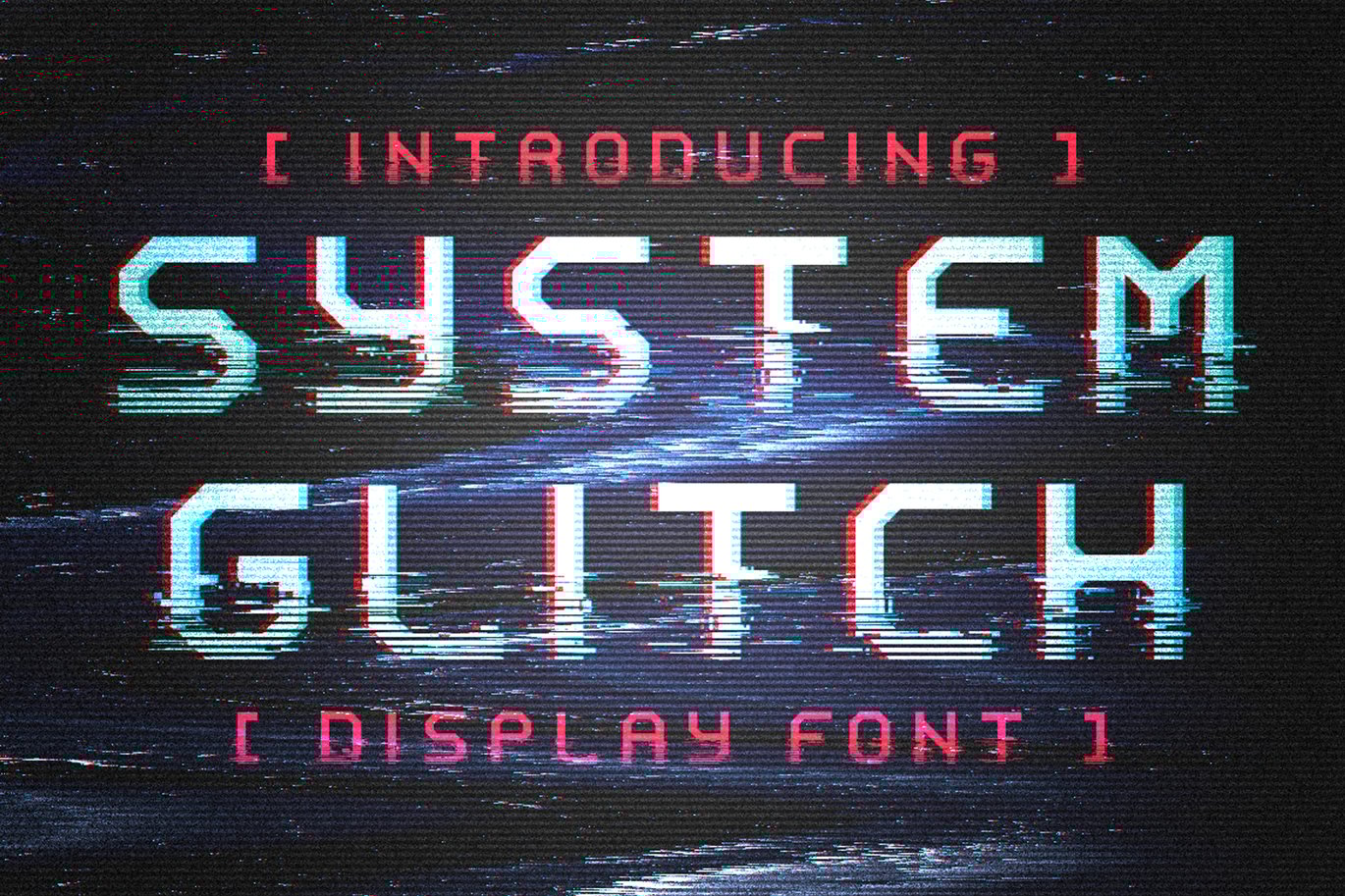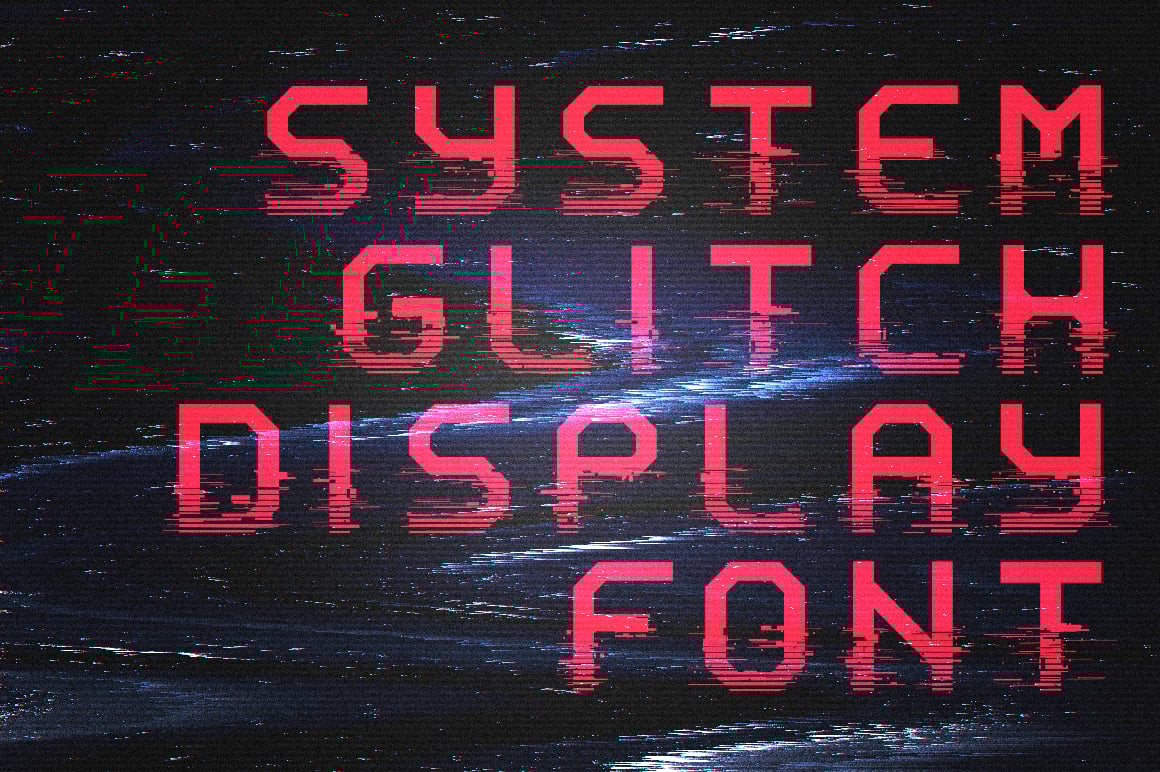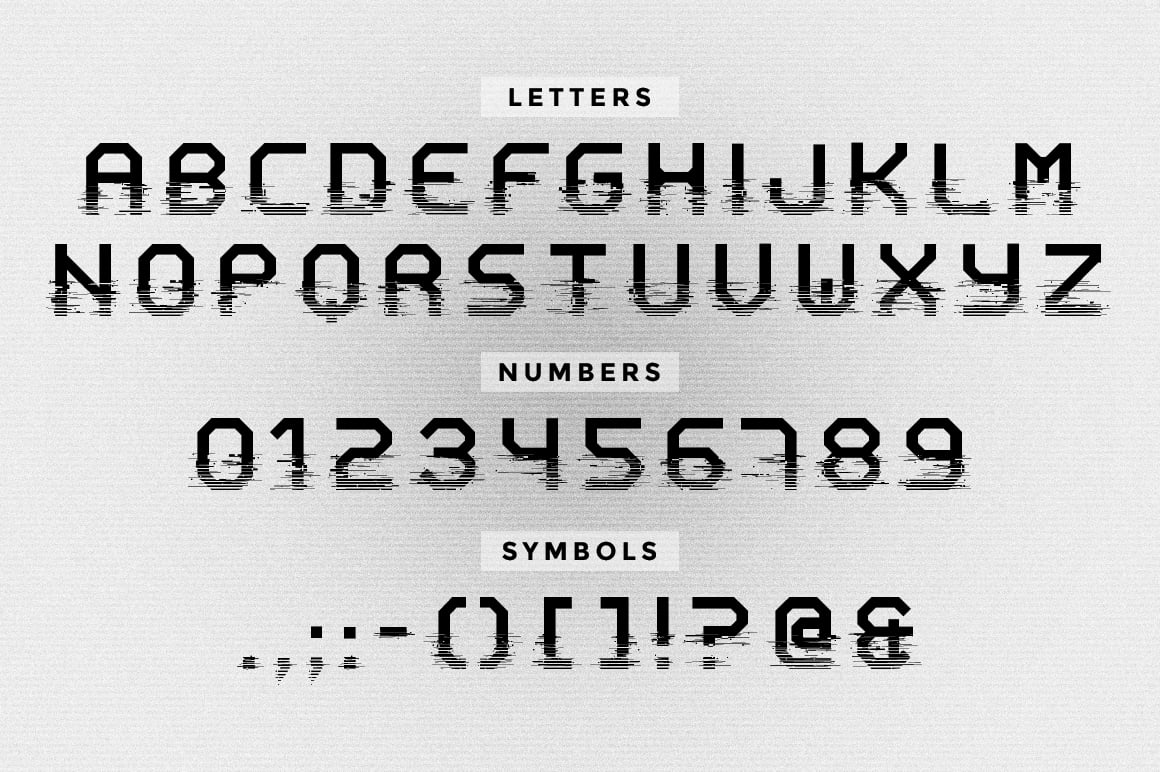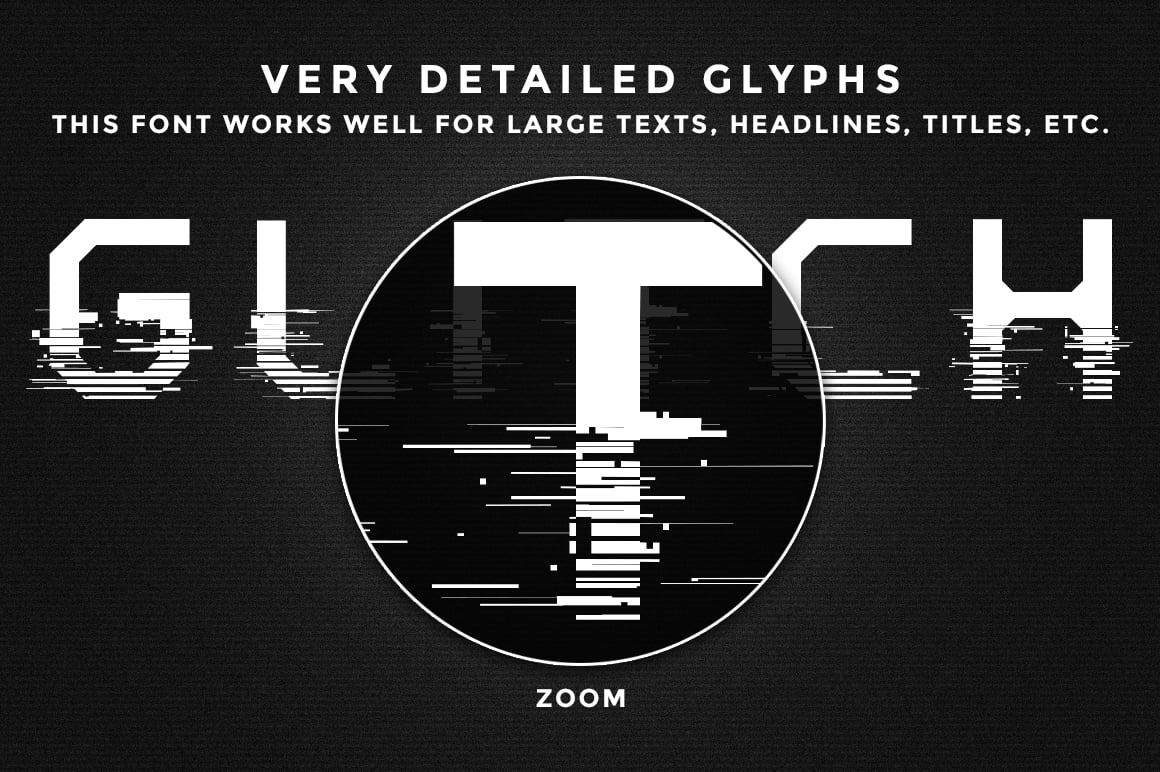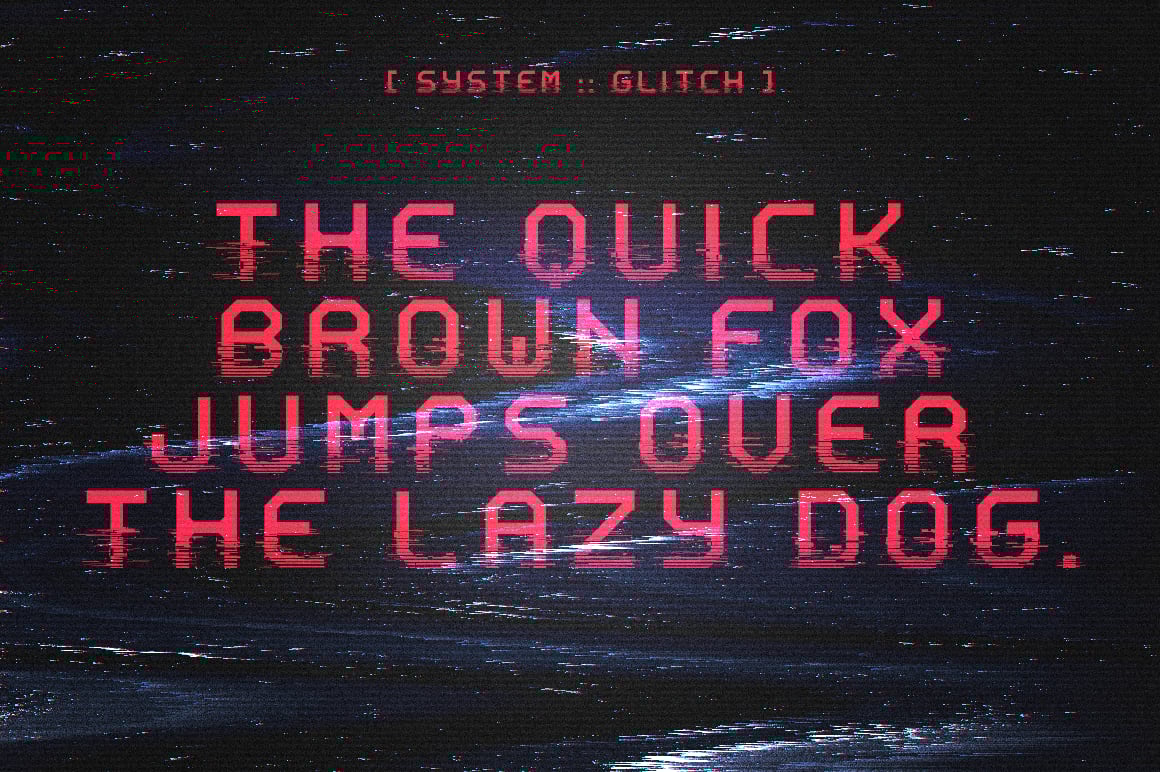
System Glitch – Display Font
System Glitch is a detailed glitch style font, that works well for titles, headlines, and large texts in general. All the different glitch “lines” components have been added separately to each letter, number and symbol for a more varied/random result – so all the glyphs are slightly different!
► Glyphs included: Letters from A to Z, numbers from 0 to 9, and a few other punctuation glyphs (see pictures for a preview of all the glyphs).
► This is an uppercase/all caps font.